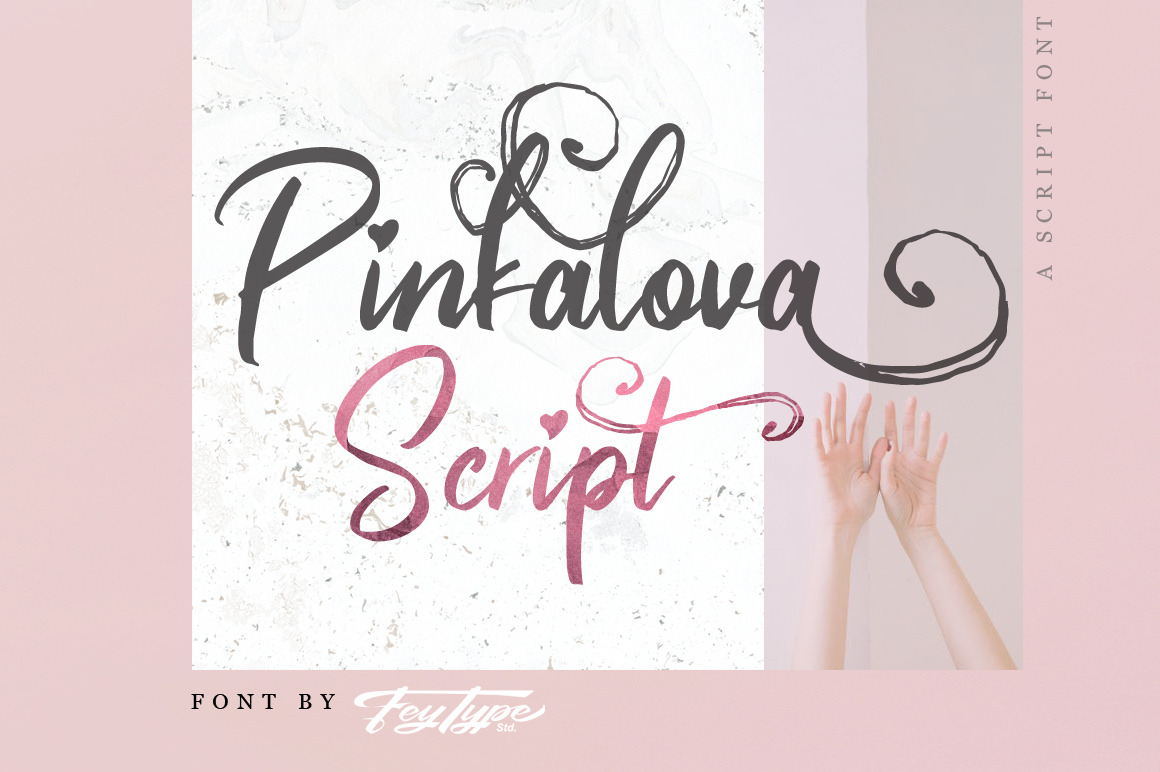
Pinkalova - Handwritting Script Font
Pinkalova is handwritten script font with love and unique style. Suitable for design, element design, wedding, event, t-shirt, logo, badges, sticker, and awesome work, etc...
Multilanguage Support: ÀÁÂÃÄÅÆÇÈÉÊËÌÍÎÏÐÑÒÓÔÕÖØÙÚÛÜÝßàáâãäåæçèéêëìíîïðñòóôõöøùúûüýÿ
Unique style fonts
Multilanguage Support